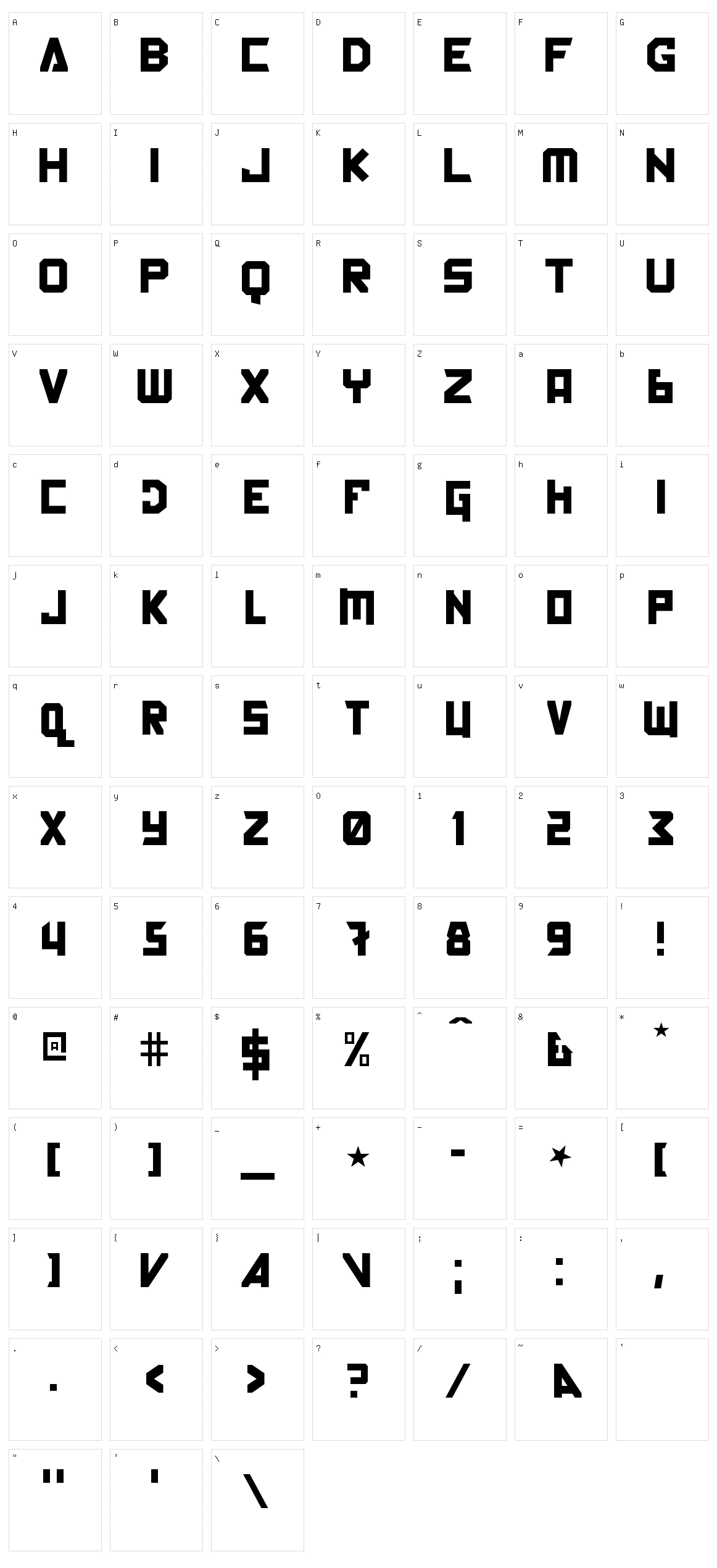
The free font Back In The USSR DL is carefully designed by Del, showcasing a thoughtful balance of creativity and usability and falls under the Russian font style. When you download the ZIP file, it contains only 22.04 KB of font files, making it lightweight and quick to download. Please review the license details below to understand permitted usage and distribution rights. If license information is not available, we recommend using this font for personal projects only or contacting the author directly for commercial usage permissions.